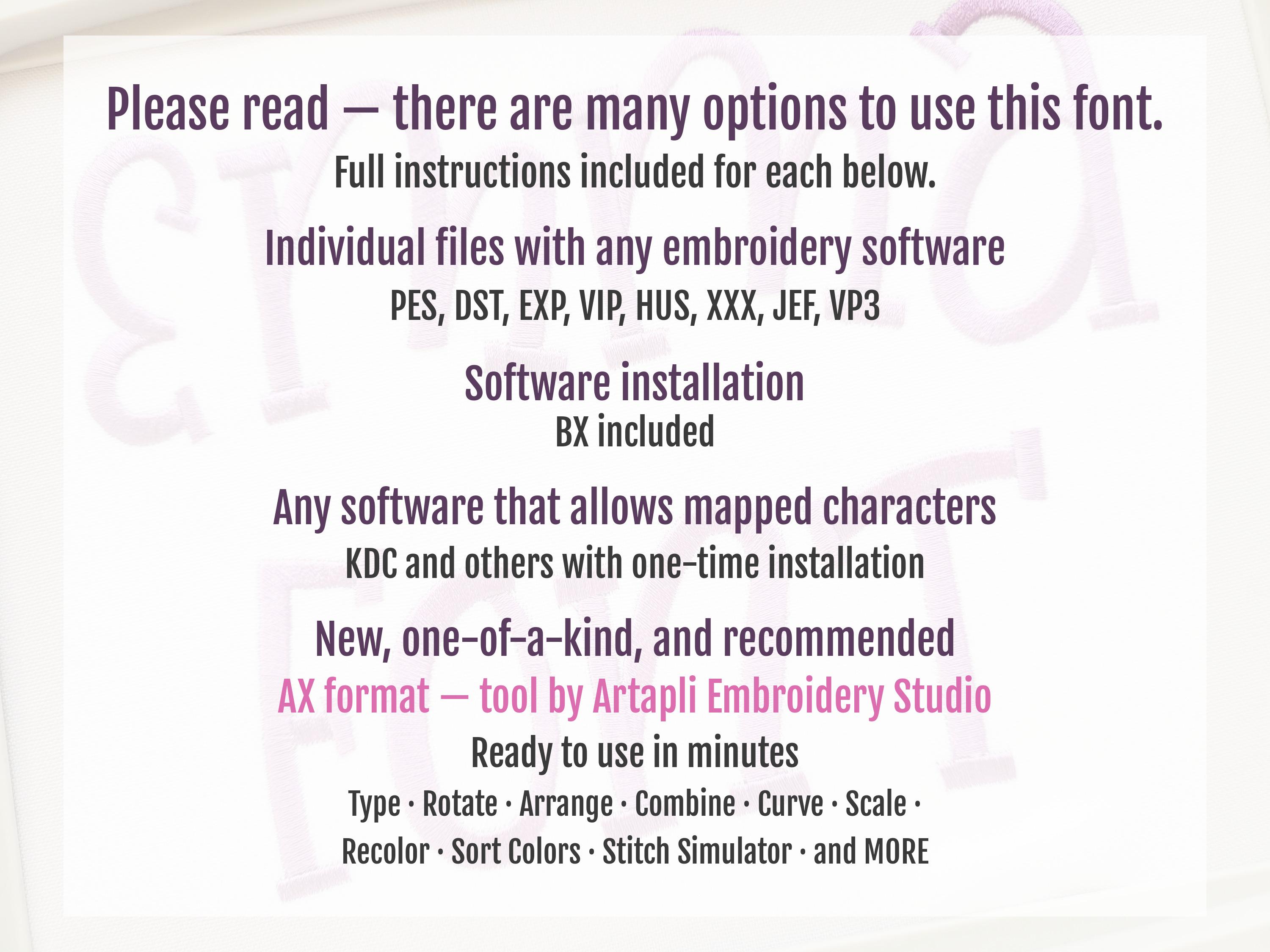
Best satin stitch Font playful kids alphabet letters and numbers monogram name, machine embroidery designs assorted sizes, BX included
Whole alphabet A-Z uppercase and numbers and special mark &